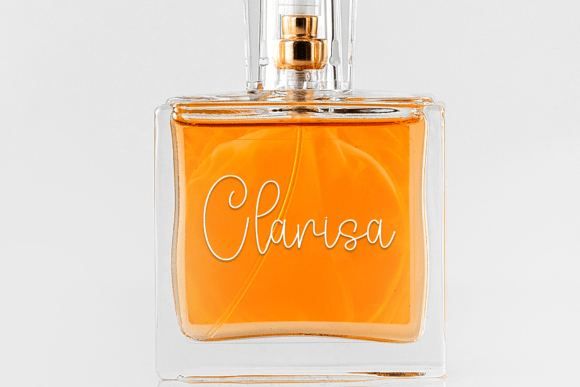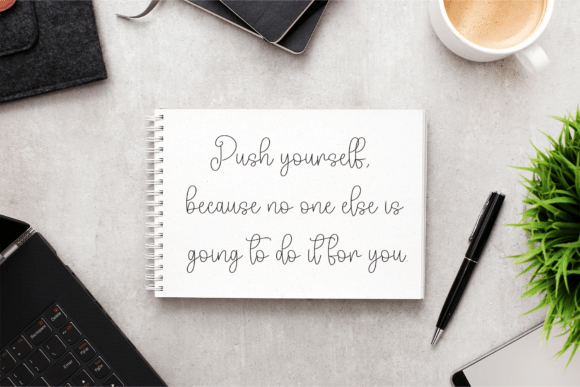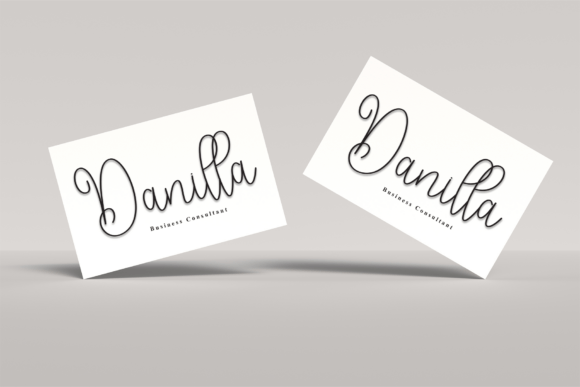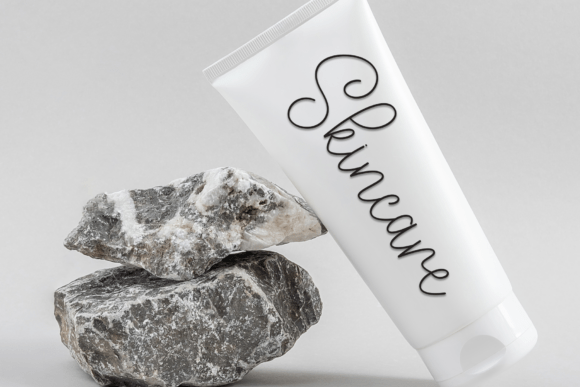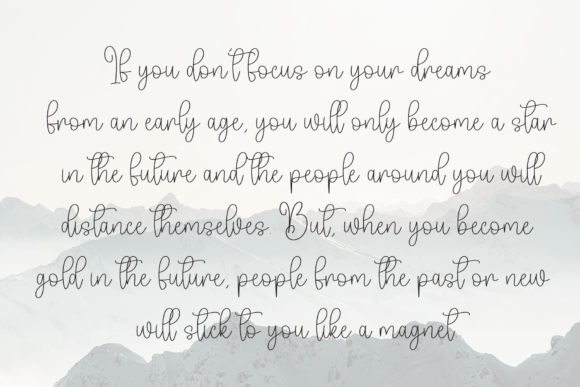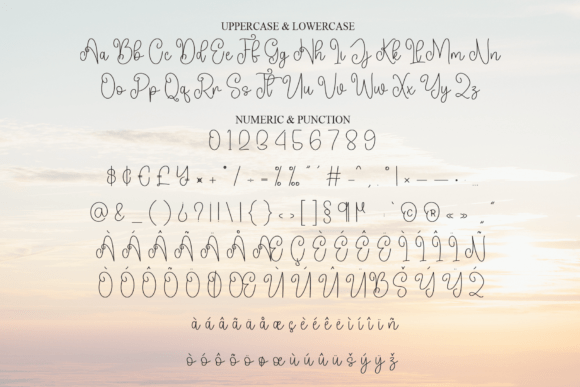
Introducing Daylight Font: Elevate Your Designs with Elegance and Fluidity
In the world of typography, a font can make or break a design. For those seeking a stylish and sophisticated touch, Daylight Font is an exceptional choice. This beautiful handwritten script font embodies elegance and fluidity, making it perfect for a wide range of creative projects. Whether you’re a designer, crafter, or simply someone who appreciates the art of typography, Daylight Font is sure to captivate your audience.
The Essence of Daylight Font
Daylight Font is a masterfully crafted typeface that exudes a sense of refinement and poise. Its smooth, flowing strokes create a natural and sophisticated feel, evoking the warmth and serenity of daylight. With a gentle, handwritten quality, this font adds a personal and artistic touch to any design, setting it apart from more traditional and formal typefaces.
Key Features of Daylight Font
- Elegant and Fluid Strokes: Daylight Font boasts smooth, connected strokes that create a sense of movement and fluidity, making it perfect for designs that require a touch of sophistication.
- Handwritten Charm: The font’s handwritten nature adds a personal and artistic touch to any design, making it ideal for creative projects, invitations, and branding.
- Balanced and Readable: Despite its elegant and cursive nature, Daylight Font remains highly readable, making it suitable for body text and longer content.
- Modern and Versatile: This font seamlessly blends traditional and modern elements, ensuring it will complement a wide range of design styles and aesthetics.
Daylight Font is an excellent choice for various creative projects, including:
- Branding and Logo Design: Add a touch of elegance and sophistication to your brand’s identity with this beautiful script font.
- Wedding Invitations and Stationery: Create stunning and personalized invitations, cards, and stationery with Daylight Font’s romantic and whimsical feel.
- Digital and Print Media: Use this font in your digital and print designs, such as brochures, posters, and social media graphics, to add a level of refinement and style.
Tips for Using Daylight Font Effectively
To get the most out of Daylight Font, consider the following tips:
- Pair with Contrasting Fonts: Combine Daylight Font with a clean, sans-serif font to create visual interest and balance in your design.
- Experiment with Colors and Textures: Take advantage of the font’s elegance by pairing it with a range of colors and textures to add depth and visual appeal.
- Use for Headings and Titles: Daylight Font’s unique and artistic style makes it perfect for headings, titles, and pull-quotes, adding a touch of personality to your design.
Daylight Font is a stunning and versatile typeface that offers a perfect blend of elegance, fluidity, and charm. Its smooth, handwritten strokes create a natural and sophisticated feel, making it an excellent choice for designers, crafters, and anyone looking to elevate their designs. With its wide range of applications and uses, Daylight Font is sure to become a favorite in your typography arsenal.